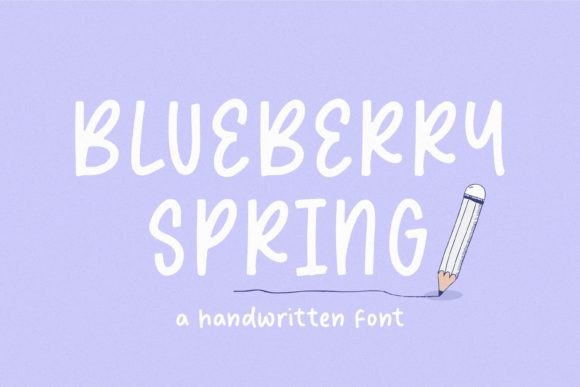
The Magic of Blueberry Spring Font: Elevating Your Handwritten Designs
I’ll never forget the time I was working on a project for a client who wanted a personal, handwritten touch. I scoured the internet for the perfect font, but nothing seemed quite right. That was until I stumbled upon Blueberry Spring Font. ✨ It was love at first sight! The fluidity, the uniqueness, the charm – it was exactly what I needed to bring my design to life.
A Personal and Handwritten Touch
Blueberry Spring is a beautiful handwritten font that takes inspiration from the natural flow of human handwriting. Each letter is carefully crafted to carry a sense of character and charm, making it perfect for creating notes, memos, journal entries, or stunning quote designs. With its gentle curves and delicate strokes, this font adds an intimate and personal feel to your written words.
So, what do I love about Blueberry Spring Font? 🤔 Here are a few things that make it stand out:
- ✨ Unique and authentic handwritten feel
- ✅ Easy to read and understand
- 💫 Perfect for creating personal and intimate designs
- 🎨 Versatile and works well with various design styles
While Blueberry Spring Font is amazing, it’s not perfect. Here are a few small quirks to keep in mind:
- ⚠️ Some letters may appear a bit inconsistent in size or spacing, which can add to the handmade feel but might not be suitable for all designs.
- 🤔 Limited availability of certain special characters or glyphs.
The Designer Inspiration Behind Blueberry Spring Font
The story behind Blueberry Spring Font is one of passion and creativity. The designer, inspired by the beauty of handwritten letters and the uniqueness of human handwriting, crafted this font to bring a personal touch to digital designs. With a keen eye for detail and a love for typography, the designer poured their heart and soul into creating a font that’s both elegant and approachable.
| What makes Blueberry Spring Font unique? | Blueberry Spring Font is unique due to its authentic handwritten feel, fluidity, and charm. Each letter is carefully crafted to carry a sense of character and personality. |
| Is Blueberry Spring Font suitable for body text? | While Blueberry Spring Font is beautiful, it’s best suited for titles, headings, and short paragraphs. For body text, a clearer font might be more suitable. |